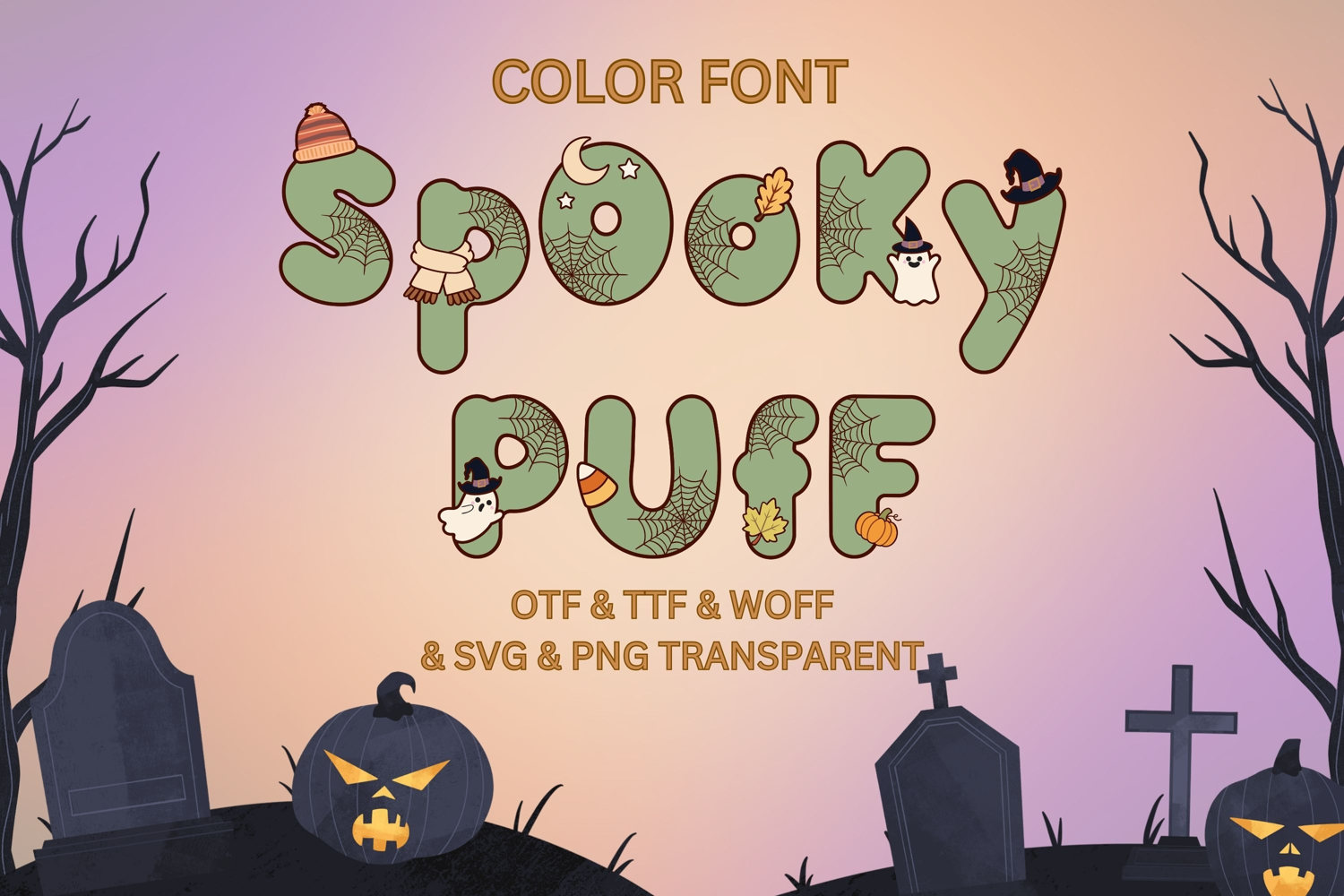
Spooky Halloween Color Font featuring cute hand-drawn letters decorated with spider webs, ghosts, witches’ hats, bats, pumpkins, candy corn, autumn leaves, scarves, candles, and cozy seasonal details. This playful and whimsical font set includes uppercase letters, lowercase letters, numerals, and punctuation characters. Perfect for Halloween crafts, party invitations, greeting cards, sublimation designs, stickers, apparel, posters, social media graphics, scrapbooking, and seasonal DIY projects. Includes OTF, TTF, WOFF, SVG, and transparent PNG formats.
SpookyPuff